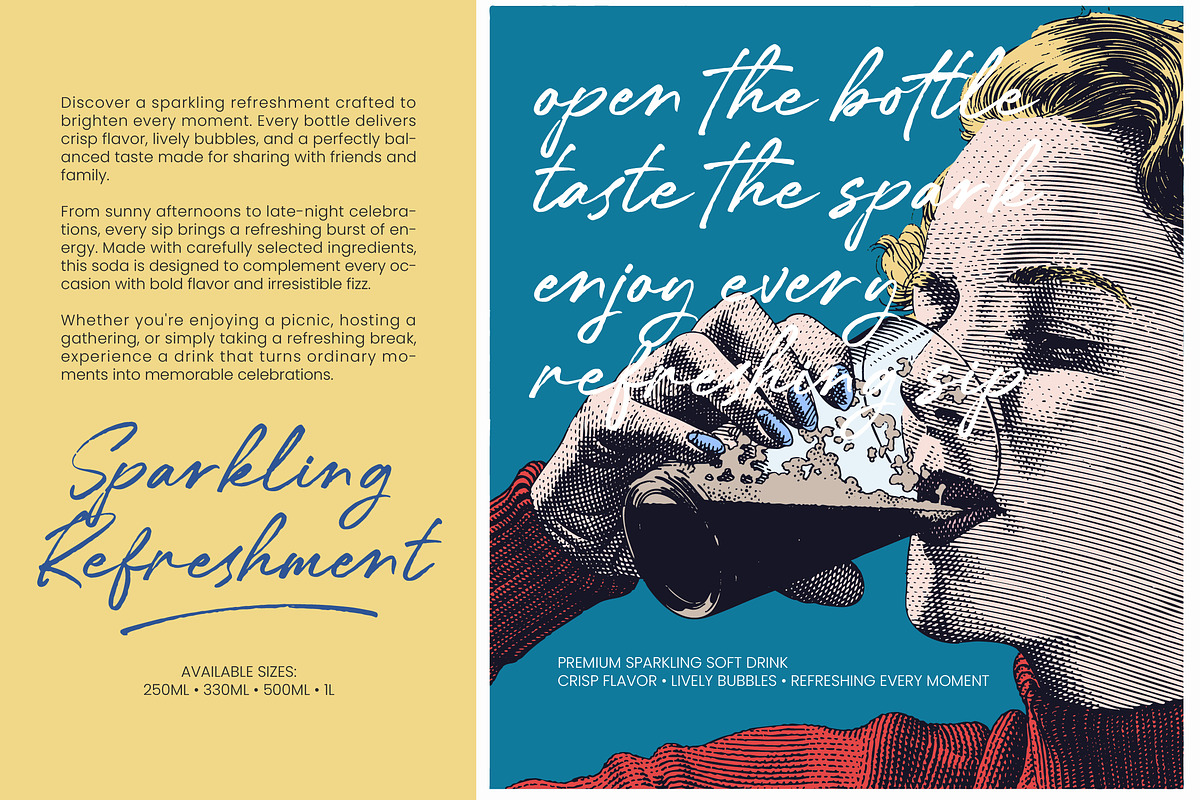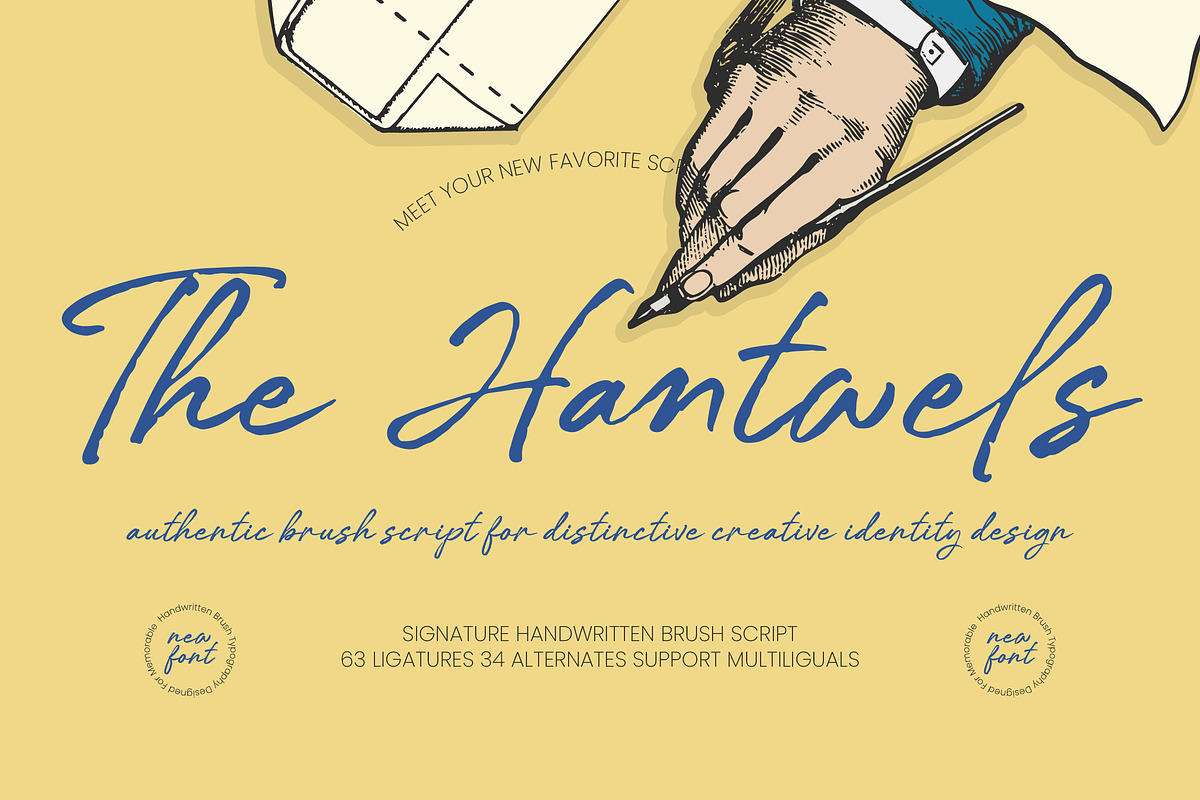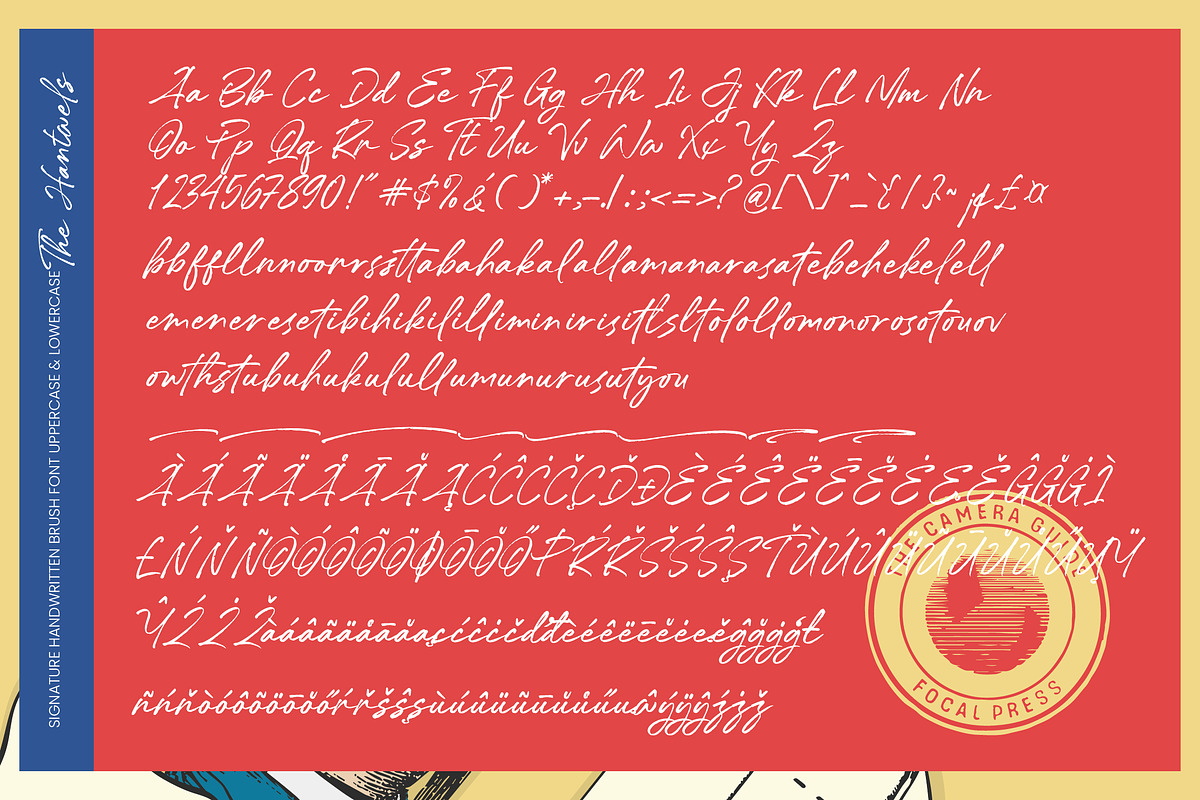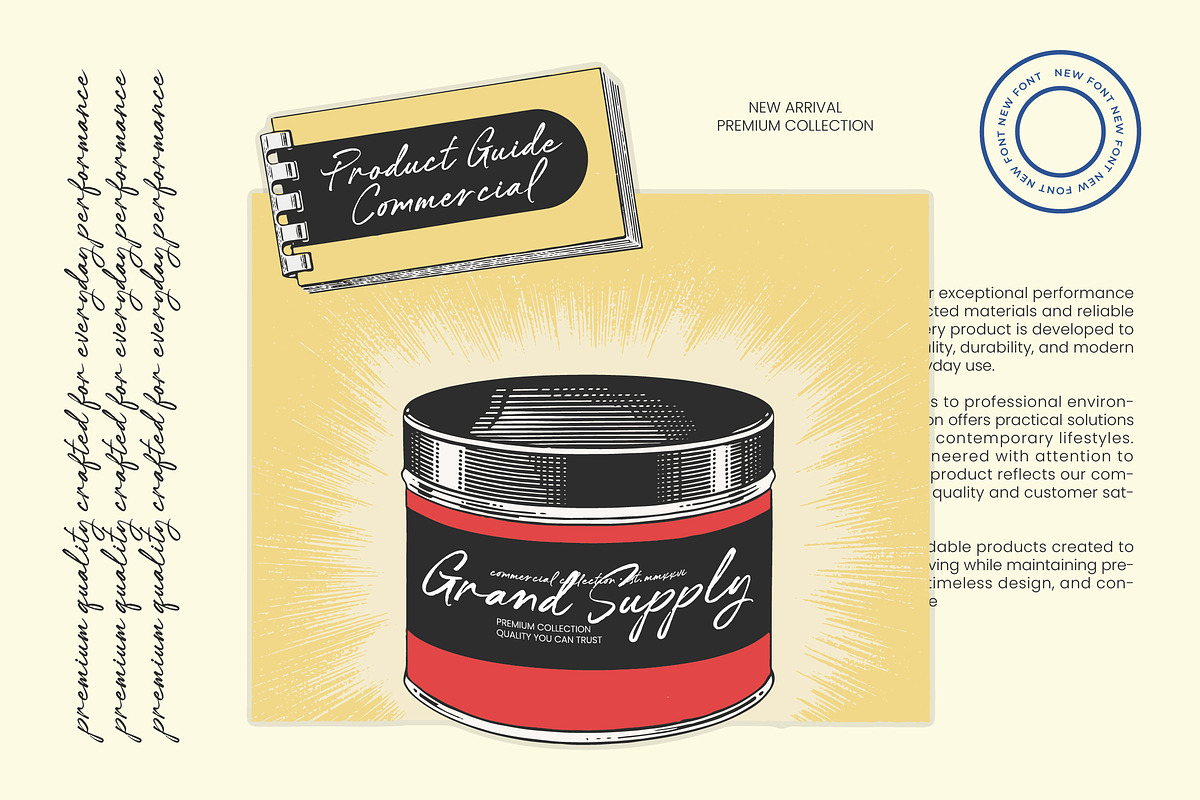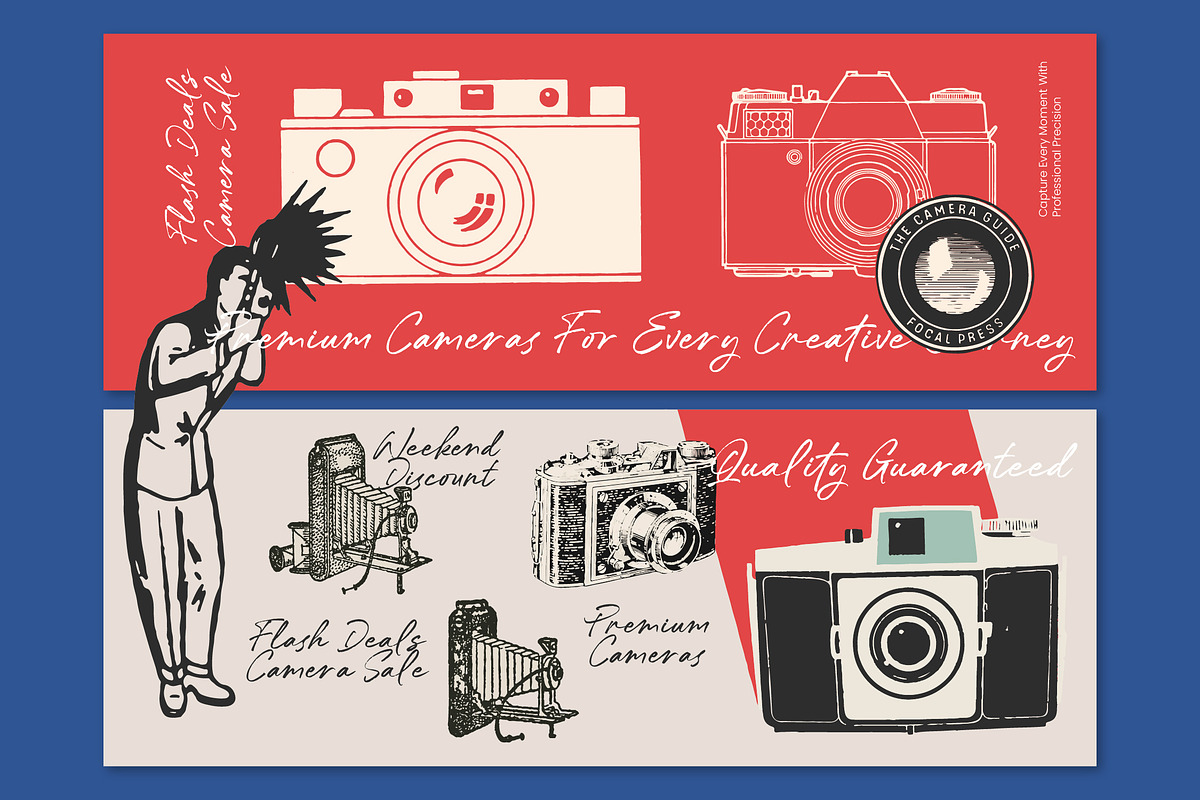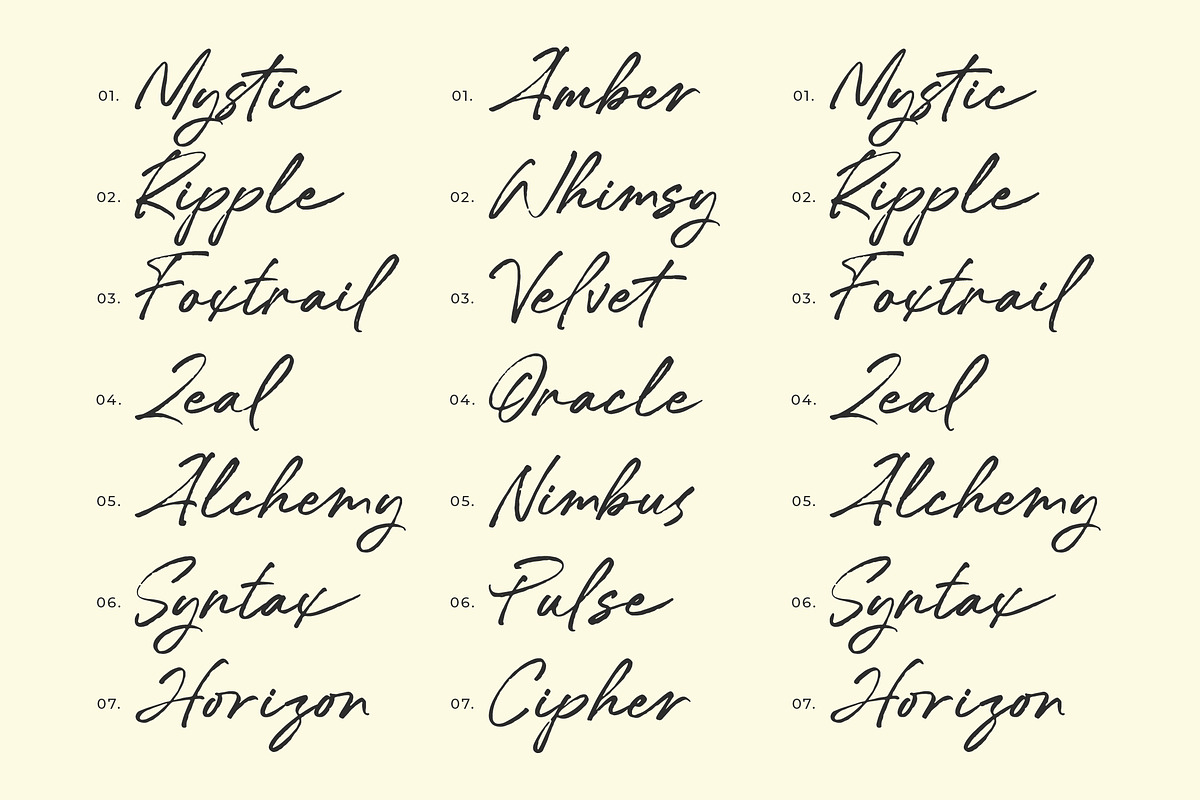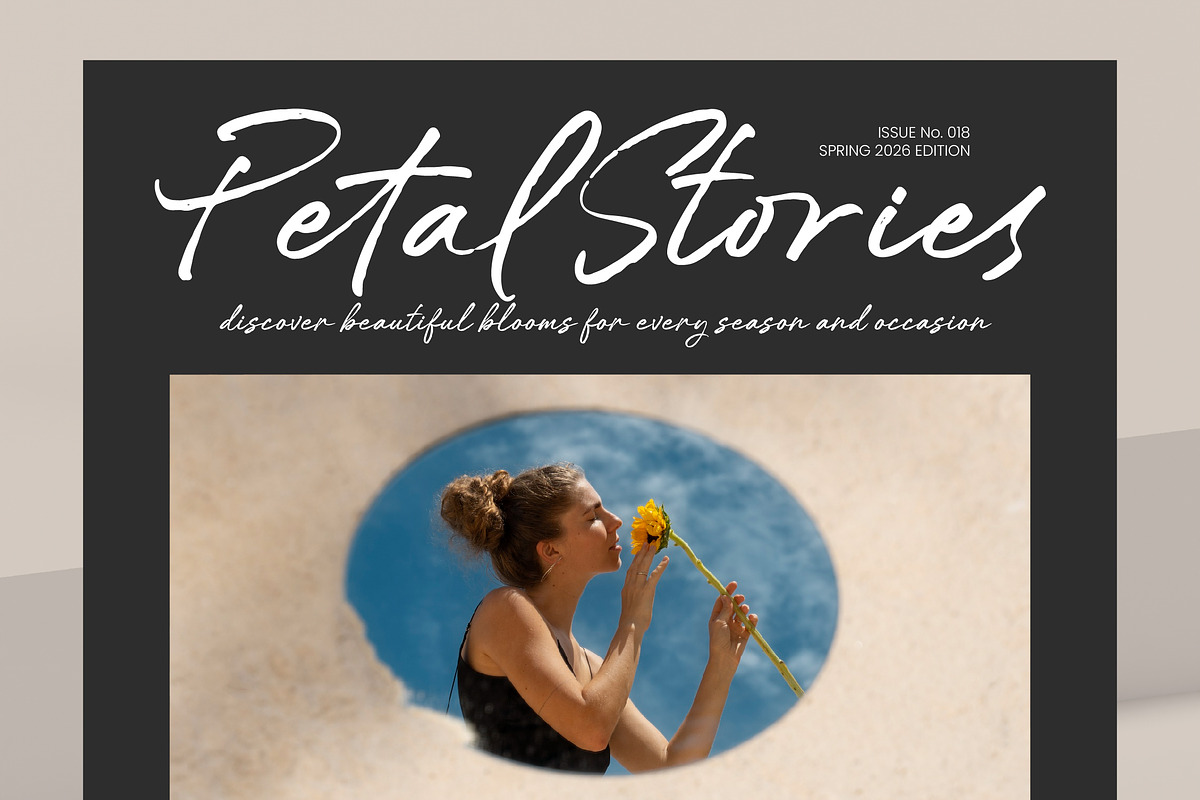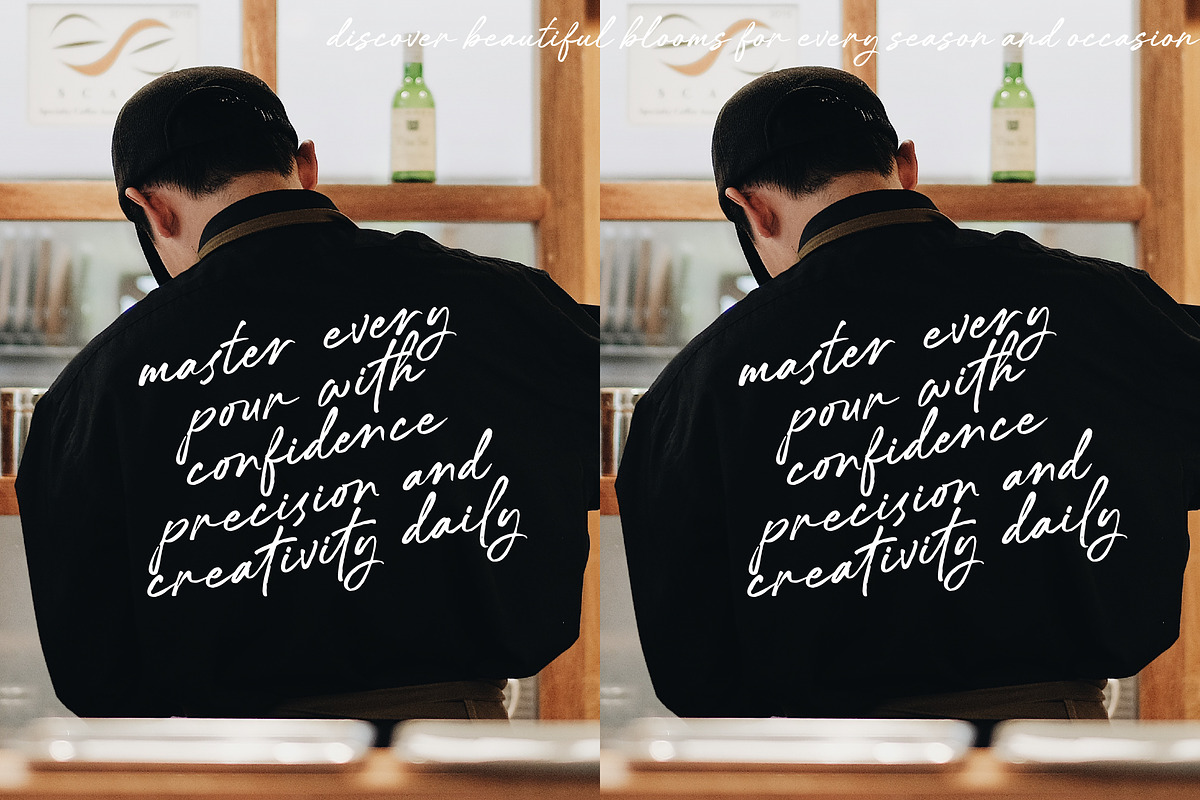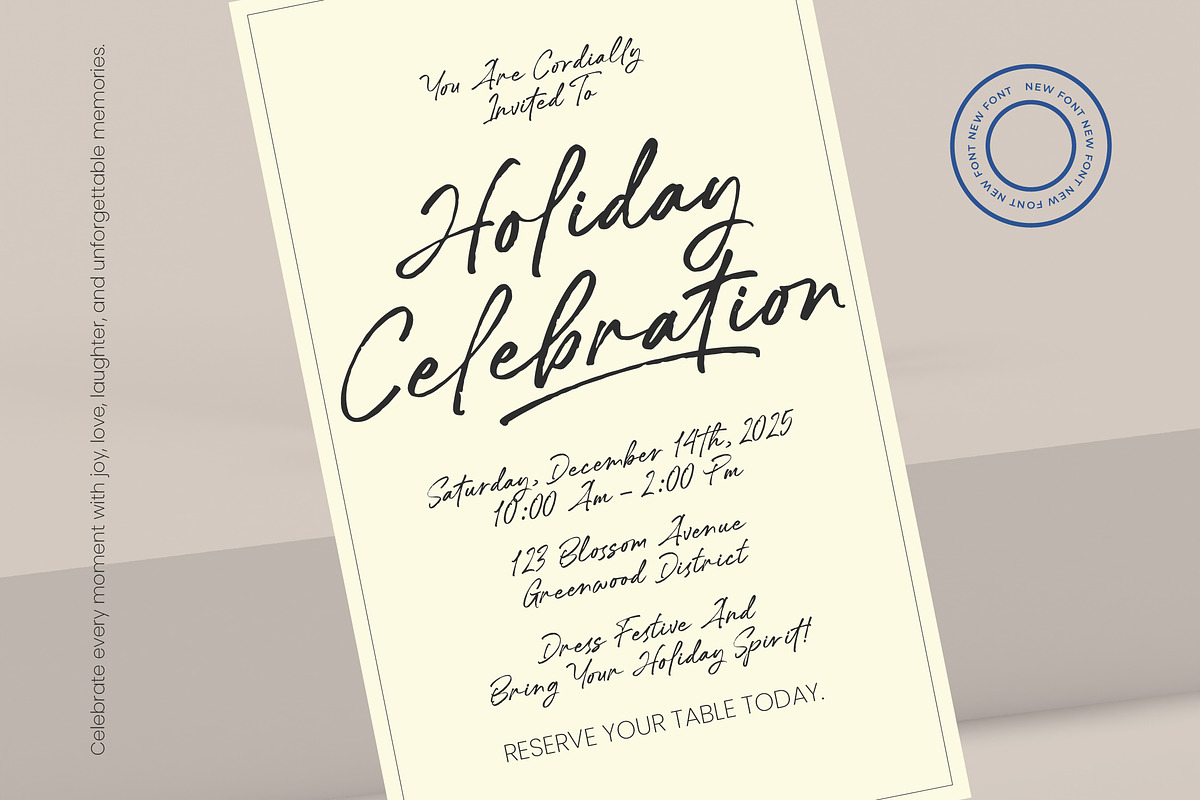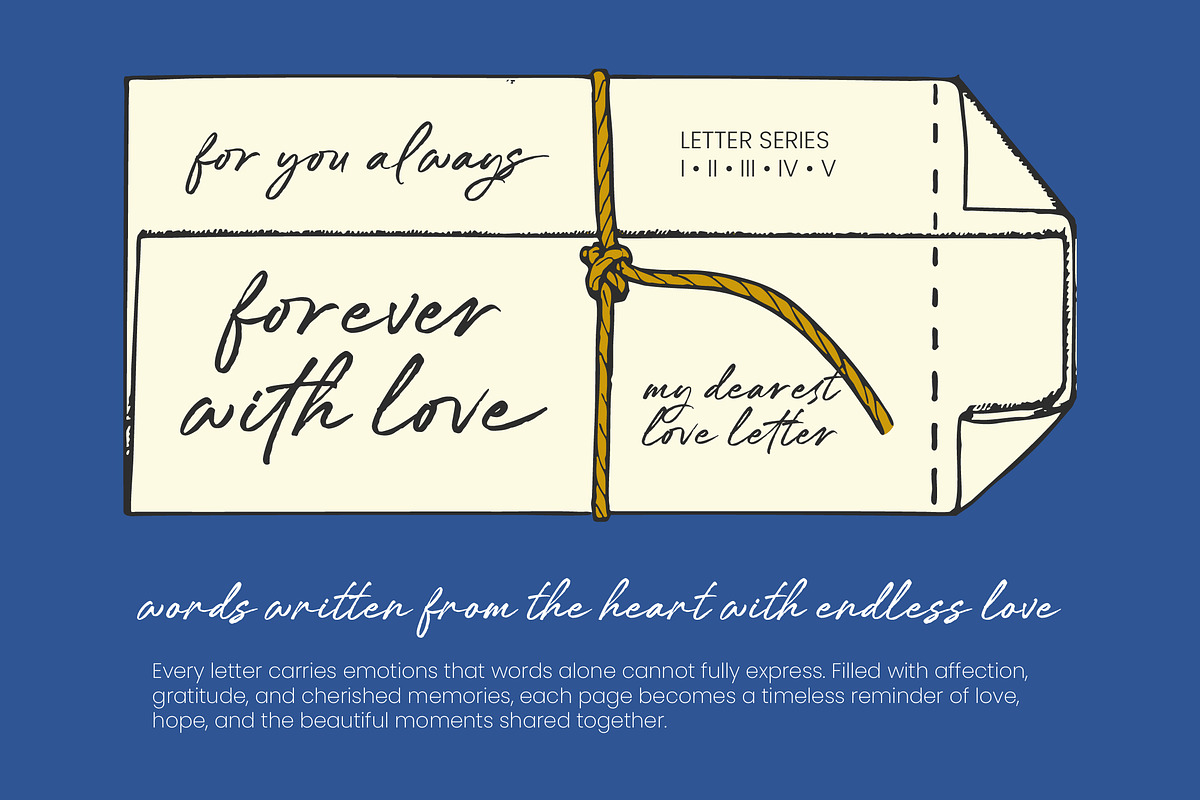
The Hantwels Signature Handwritten
The Hantwels - Signature Handwritten Brush Script
Elevate your creative projects with an unmatched sense of authenticity and fluid elegance. The Hantwels - Signature Handwritten Brush Script captures the raw energy of hand-painted strokes, offering a distinctive creative identity that stands out in a crowded market. This authentic brush script features an organic texture and a natural flow, making it an essential asset for designers seeking to convey personality and high-end craftsmanship in every letter.
Experience the pinnacle of design versatility with a typeface engineered for luxury branding and high-impact visuals. The Hantwels - Signature Handwritten Brush Script is perfect for sophisticated packaging, editorial design, and bespoke wedding invitations where a personal touch is paramount. Whether applied to social media graphics or premium product labels, this font ensures your brand maintains a refined aesthetic that resonates with discerning audiences.
Empower your brand to speak to a worldwide audience with comprehensive technical features. With its extensive multilingual support, The Hantwels - Signature Handwritten Brush Script adapts seamlessly across global markets, making it incredibly versatile for international projects. Boasting 63 custom ligatures and 34 unique alternates, this script provides the typographic flexibility needed to create truly bespoke layouts that never feel repetitive or generic.
Secure a timeless aesthetic that bridges the gap between classic brushwork and modern typography. Investing in The Hantwels - Signature Handwritten Brush Script means choosing a professional-grade tool that delivers a premium finish every time. Enhance your commercial portfolio today with a typeface that embodies creative excellence and artistic sophistication across all digital and print mediums.